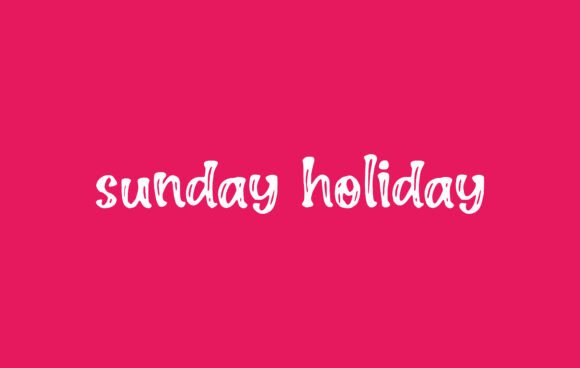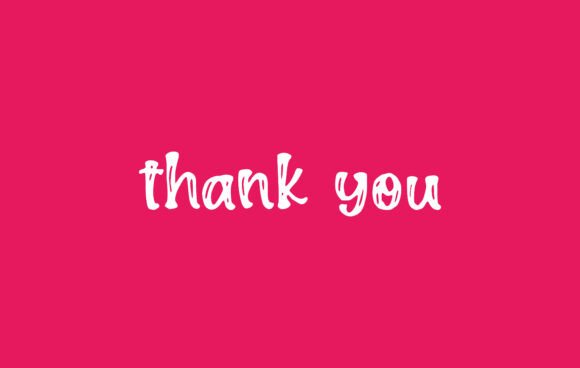
Elden Script Font: Adding a Touch of Whimsy to Your Designs
In the world of typography, fonts play a crucial role in conveying the tone and personality of a design. If you’re looking for a font that exudes fun, playfulness, and a dash of quirkiness, look no further than the Elden Script Font. This charming script font is perfect for designers and crafters who want to add a touch of whimsy to their projects.
What is Elden Script Font?
Elden Script is a fun and quirky script font that combines hand-drawn charm with playful personality. Its bouncy strokes and uneven curves bring a whimsical vibe to greeting cards, kids’ projects, logos, and quotes. The font’s unique characteristics make it an excellent choice for designs that require a personal touch.
Key Features of Elden Script Font
- Hand-drawn charm: Elden Script Font has a distinctly hand-drawn feel, which gives it a warm and inviting personality.
- Playful strokes: The font’s bouncy strokes and uneven curves add a playful touch to any design.
- Whimsical vibe: Elden Script Font is perfect for designs that require a whimsical or quirky feel, such as greeting cards, kids’ projects, and logos.
- Versatile: The font can be used for a wide range of projects, from digital designs to print materials.
Uses of Elden Script Font
Elden Script Font is an incredibly versatile font that can be used for various design projects. Here are some ideas to get you started:
- Greeting cards: Add a personal touch to your greeting cards with Elden Script Font’s playful and whimsical vibe.
- Kids’ projects: The font’s fun and quirky personality makes it perfect for kids’ projects, such as posters, flyers, and activity sheets.
- Logos: Use Elden Script Font to create a unique and memorable logo for your brand or business.
- Quotes: Add a touch of whimsy to your quotes and social media posts with Elden Script Font.
Tips for Using Elden Script Font
To get the most out of Elden Script Font, here are some tips to keep in mind:
- Use it sparingly: While Elden Script Font is a beautiful font, it can be overwhelming if used excessively. Use it sparingly to add a touch of whimsy to your design.
- Pair it with other fonts: Combine Elden Script Font with other fonts to create a unique and visually appealing design.
- Experiment with colors: Don’t be afraid to experiment with different colors and textures to enhance the font’s playful personality.
Elden Script Font is a fun and quirky script font that can add a touch of whimsy to your designs. Its hand-drawn charm, playful strokes, and uneven curves make it perfect for greeting cards, kids’ projects, logos, and quotes. With its versatility and unique personality, Elden Script Font is an excellent choice for designers and crafters looking to add a personal touch to their projects.
Whether you’re a designer, crafter, or simply someone who loves typography, Elden Script Font is an excellent addition to your font collection. Its unique personality and versatility make it perfect for a wide range of projects, from digital designs to print materials.